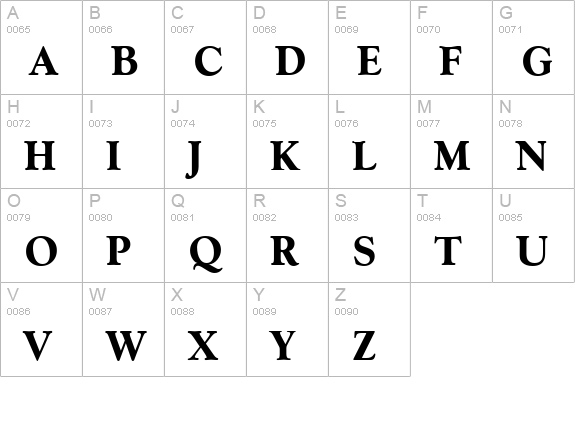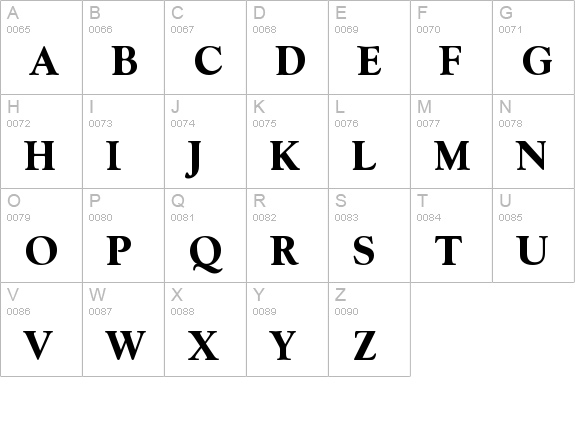
GoudySerial-Xbold-Regular is the standard, neutral variant in the GoudySerial typeface family \xE2\x80\x94 well suited to general body text, paragraphs, and standard typographic work.
GoudySerial-Xbold-Regular is a classic and elegant font that exudes sophistication and style. With its bold and strong appearance, it commands attention and makes a statement in any design project. The clean lines and timeless appeal of this font make it versatile and suitable for a wide range of applications. What sets GoudySerial-Xbold-Regular apart is its ability to convey a sense of authority and professionalism while still maintaining a sense of warmth and approachability. Whether used for headlines, logos, or body text, this font is sure to make a lasting impression. The best part? GoudySerial-Xbold-Regular is available for free download at FontsMarket.com. Simply head over to the website and start using this beautiful font in your projects today. Don't miss out on the opportunity to add a touch of elegance to your designs with GoudySerial-Xbold-Regular.